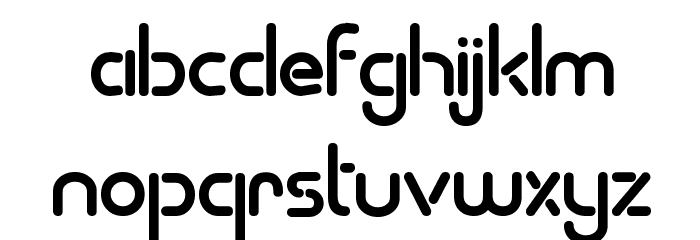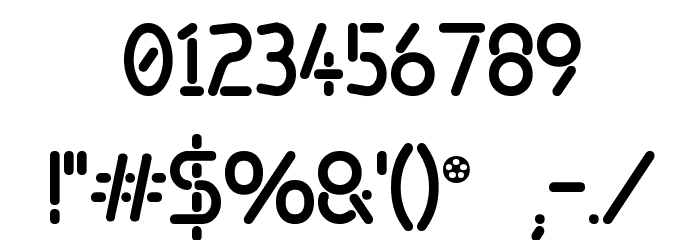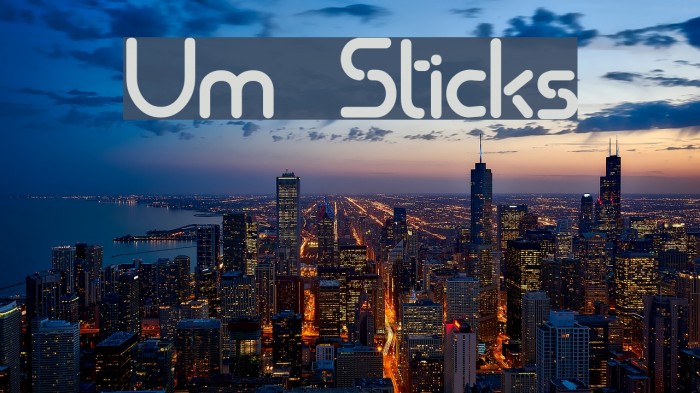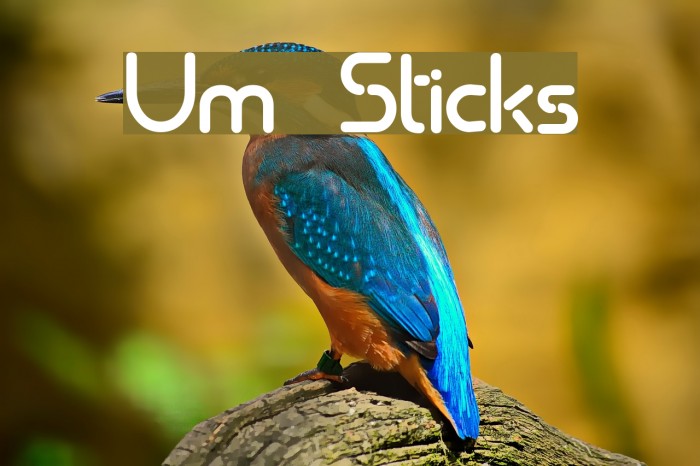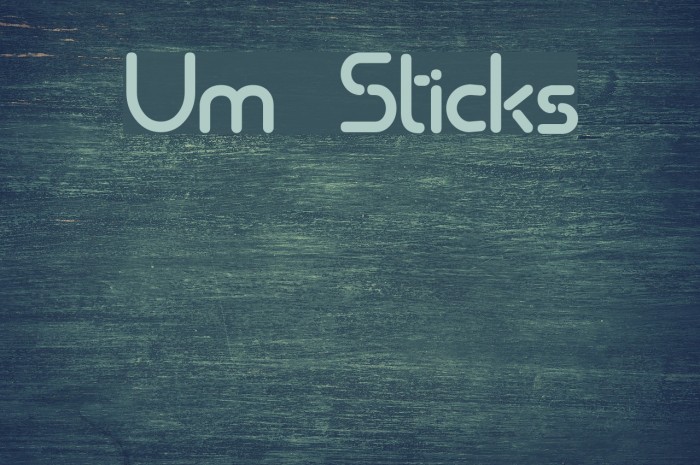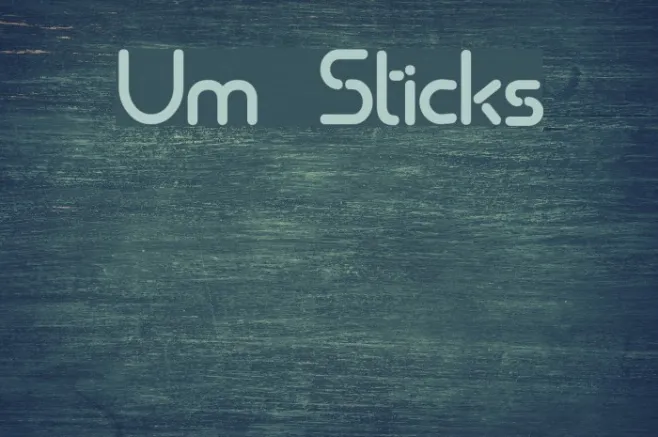
Um Sticks Font
This font features a modern and playful design with rounded edges and a geometric structure. The characters are bold and uniform, with a consistent stroke width that gives a clean and cohesive appearance. The uppercase and lowercase letters maintain a similar style, enhancing readability while adding a touch of uniqueness. The numerals and special characters are crafted to match the overall aesthetic, making them suitable for various design applications. The font's distinctive look is both eye-catching and versatile, perfect for projects that require a contemporary and approachable feel.
A modern, rounded font with geometric structure and consistent stroke width.